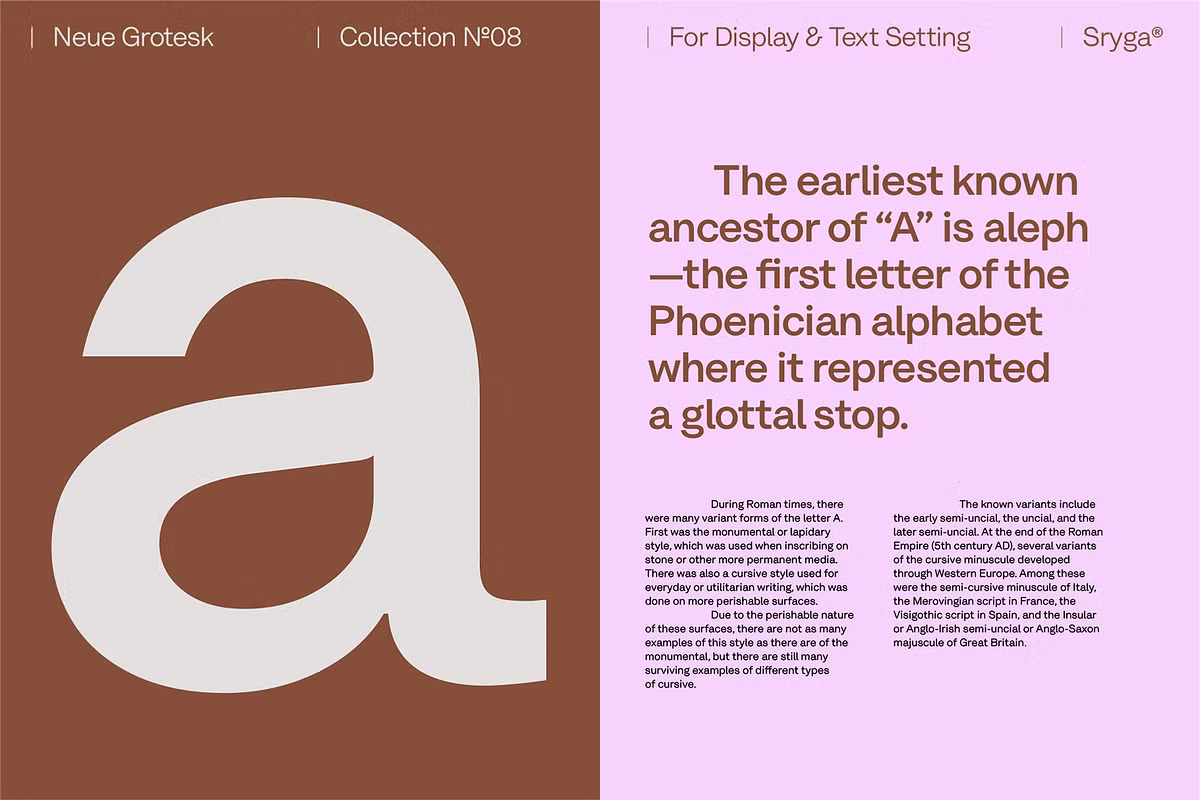
Makking — Variable Sans Grotesk
Makking: Versatile Variable Sans Grotesk Typeface for Creative Design
Makking is a typeface that mixes shape with a feel. I like Makking. The Makking typeface can change its weight and style so the Makking typeface works for projects. The Makking typeface can handle headlines and small captions alike. The Makking typeface reads clearly. Adds a surprise, in each letter. I notice how the Makking typeface makes each letter tell a story, for the reader.
An example of the Makking typeface in use
Example of Makking typeface in creative design.
Makkings design style uses lines that make any project look better. I notice the typeface mixes ideas, with classic sans-serif shapes and adds quirks that feel handmade. These small details make the font more, than a font; the font becomes part of the design narrative. Makking can change. When I use Makking I see weights and many styles. Makking lets you adjust the thickness of the characters to fit the design you need. Makking works for the look and, for the look. If you want a look or a look that catches the eye Makking adapts easily.
Character Sets
I use Makking because Makking gives me a full character set. The full character set makes my designs look good and work well. The typeface works with languages. The typeface fits audiences. The typeface also gives me characters, ligatures and numerals. The special characters, the ligatures and the numerals are needed for designs. Additionally, Makking includes sets. Makking lets you change the look of your text. You can pick letterforms. The letterforms give your typography a style. The letterforms improve the look of your design.
Character sets and ligatures in the Makking typeface
Character sets enhance typography versatility.
I notice the versatility of Makking makes Makking ideal, for use cases. Here are some applications where the typeface Makking shines:
• Branding: Use Makking, for logo design. Makkings distinctive character helps establish the brand identity.
• Editorial Design: I think Editorial Design is perfect, for magazine layouts. Editorial Design makes the headlines and the body text engaging and readable.
• Web Design: Web Design works well for websites that need navigation and strong call, to action sections. Web Design helps the visitor move through the site. Take the step.
• Advertising: Advertising is used in the material to grab attention. Advertising uses headlines and engaging taglines.
• Social Media Graphics: I use Social Media Graphics to make posts that look good. I see Social Media Graphics help my posts stand out in the feeds.
Examples of Makking typeface in branding and advertising
Makking typeface in branding and advertising contexts.
When working with Makking, consider pairing it with complementary typefaces to enhance your design. This will provide balance and contrast, making your typography more engaging. The adaptability of Makking allows it to harmonize with various styles, making it a versatile choice for any designer.
Typography examples showcasing Makking with other typefaces
Typography examples showcasing Makking’s versatility.